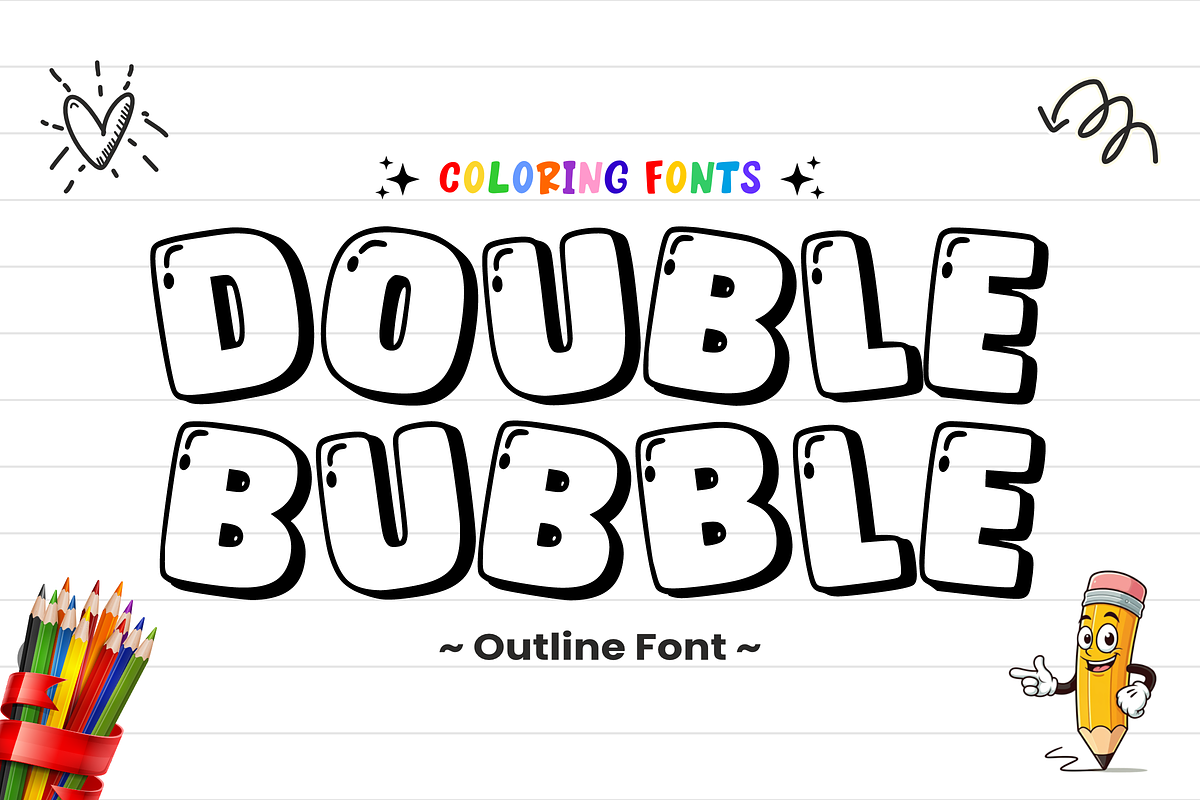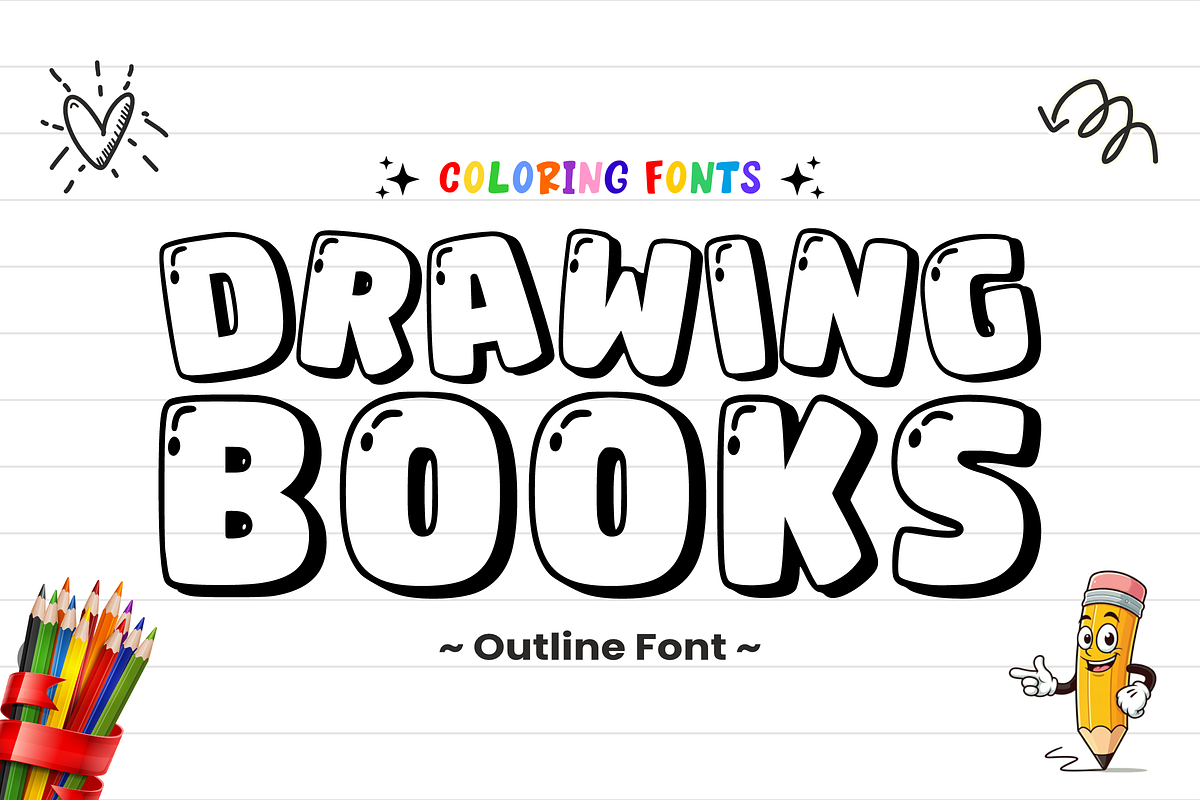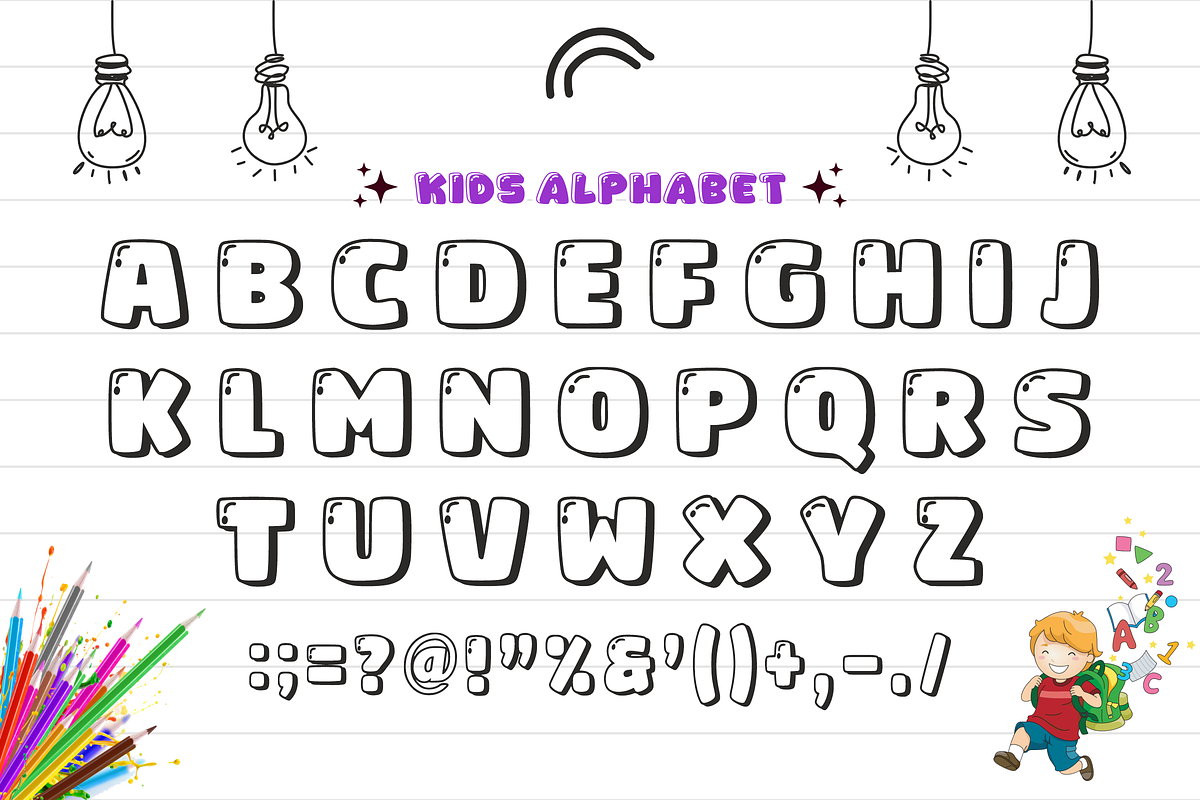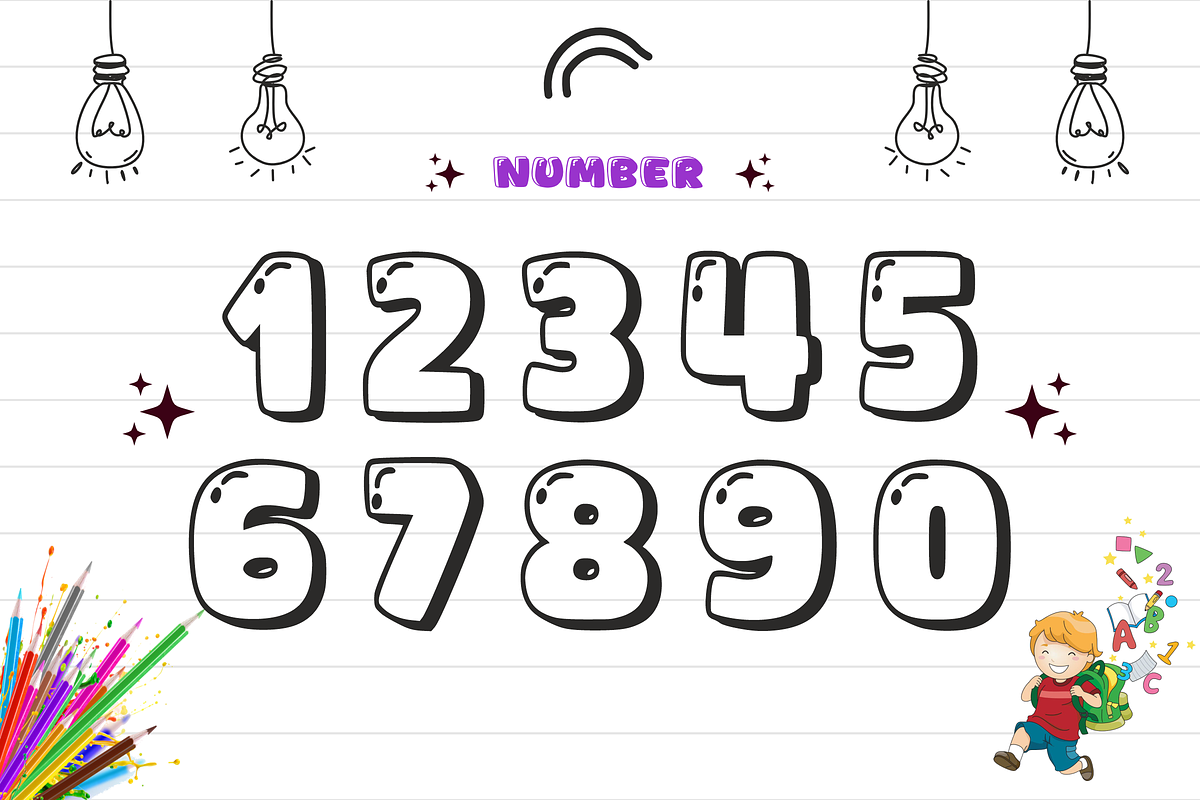
Double Bubble – Playful Bubble
🎨 Double Bubble – Playful Bubble Outline Font ✨ Pop your designs to life with a burst of fun! 🎈
Double Bubble is a chunky, cheerful outline font designed to bring a playful and creative energy to your projects. With its bold, rounded shapes and clean white space, this font is perfect for coloring books, kids' crafts, and eye-catching headlines. It’s designed to look like bubbly balloons, making every word feel lighthearted and full of joy!
Whether you’re creating educational materials, classroom posters, or fun brand logos, Double Bubble adds a whimsical touch that children and parents alike will love.
🌟 Features: Unique Outline Style: Bold, bubbly characters perfect for coloring and DIY crafts.
Complete Set: All Uppercase Letters, Numbers, and Essential Symbols.
Versatile & Legible: High-impact bold design that’s easy to read and fun to customize.
🎨 Perfect For: 🖍️ Coloring Books & Educational Sheets
🍎 Back-to-School Posters & Classroom Decor
👕 Kids' Apparel & Fun T-Shirt Designs
📱 Social Media Graphics & YouTube Thumbnails
🎂 Birthday Invitations & Party Supplies
🧩 Stickers, Scrapbooking, and DIY Projects